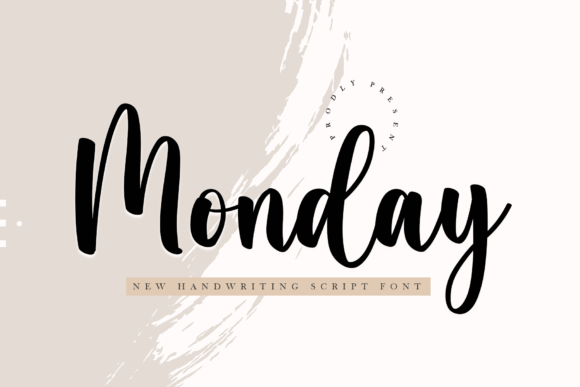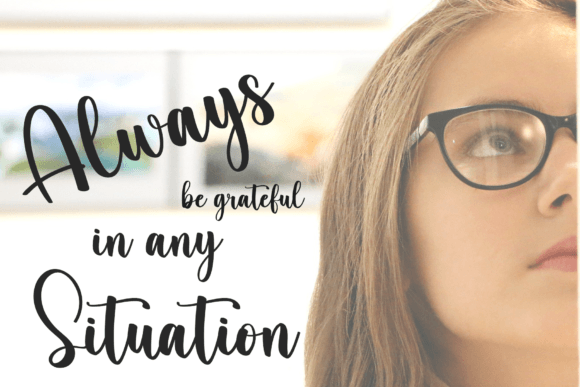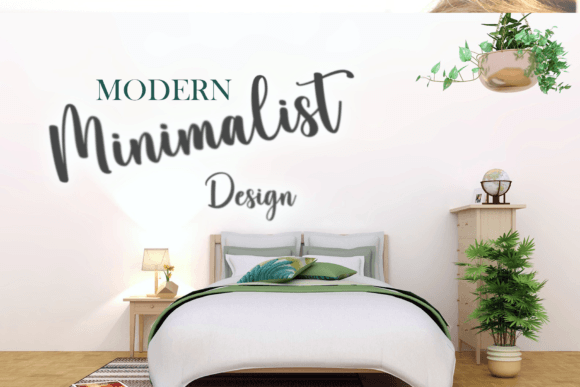
About Monday Font
“Monday” is a stylish handwritten font that exudes a contemporary and chic atmosphere while maintaining impeccable form, drawing inspiration from the timeless art of classic calligraphy. With a harmonious and diverse character, this font has been meticulously crafted to elevate the aesthetics of your projects and enhance their overall beauty.
The “Monday” font offers a perfect blend of modern sophistication and classical elegance. Its clean lines and graceful curves make it a versatile choice for a wide range of design applications, allowing it to add a touch of refinement to your work.
Whether you’re creating branding materials, logos, invitations, or any other design project, “Monday” has the versatility to complement and enhance your vision. Its contemporary charm brings a sense of modernity, while its calligraphic roots lend it a timeless and enduring appeal.
For businesses and individuals seeking a font that strikes a balance between contemporary aesthetics and classic elegance, “Monday” is a superb choice. It can help establish a refined and memorable visual identity, making your projects stand out with a touch of sophistication.
In summary, “Monday” is a stylish handwritten font that embodies a contemporary ambiance while paying homage to the classic art of calligraphy. Its balanced and varied design enhances the beauty of your projects, making it an excellent option for branding, logos, invitations, and various design endeavors. With “Monday,” you can infuse your work with a sense of timeless grace and modern appeal.